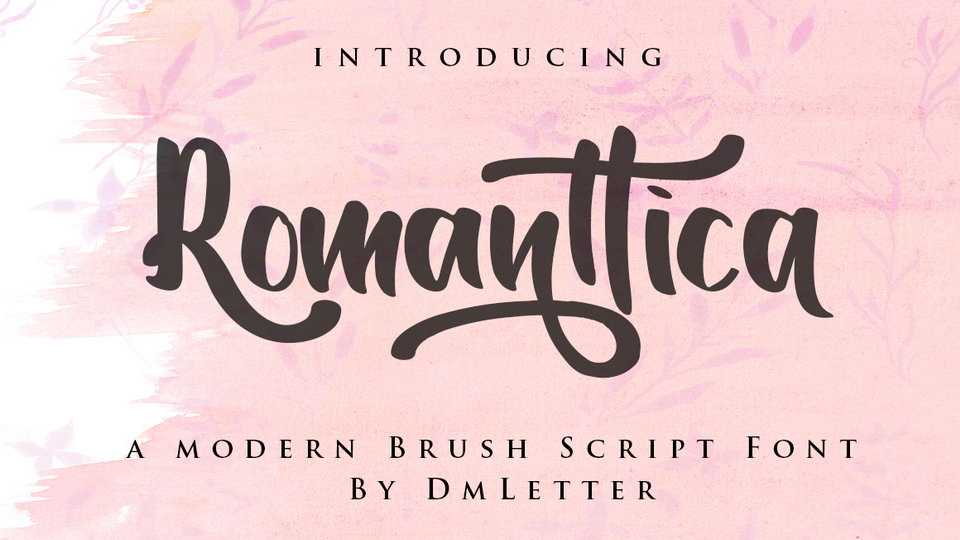
Download Romanttica font, a lovely modern handwritten brush script. The nodes are reduces gently so you’ll get the clean and smooth in every character. It will gives you a simple and beauty touch for many projects such as invitation, cards, gifts, branding, logo and other
Designer: DM Letter Studio